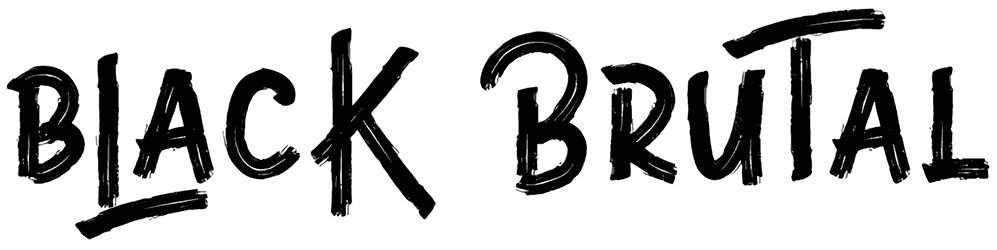
Black Brutal Font
Black Brutal is a modern brush font that is adventurous! It offers strong, bold sans serif brush characters that are sporty, as well as adding a natural pain feel to your typography. If you would like a confident, serious font that has a grunge design consider adding Black Brutal in places like gaming, clothing, branding, invitations, cards, and more.